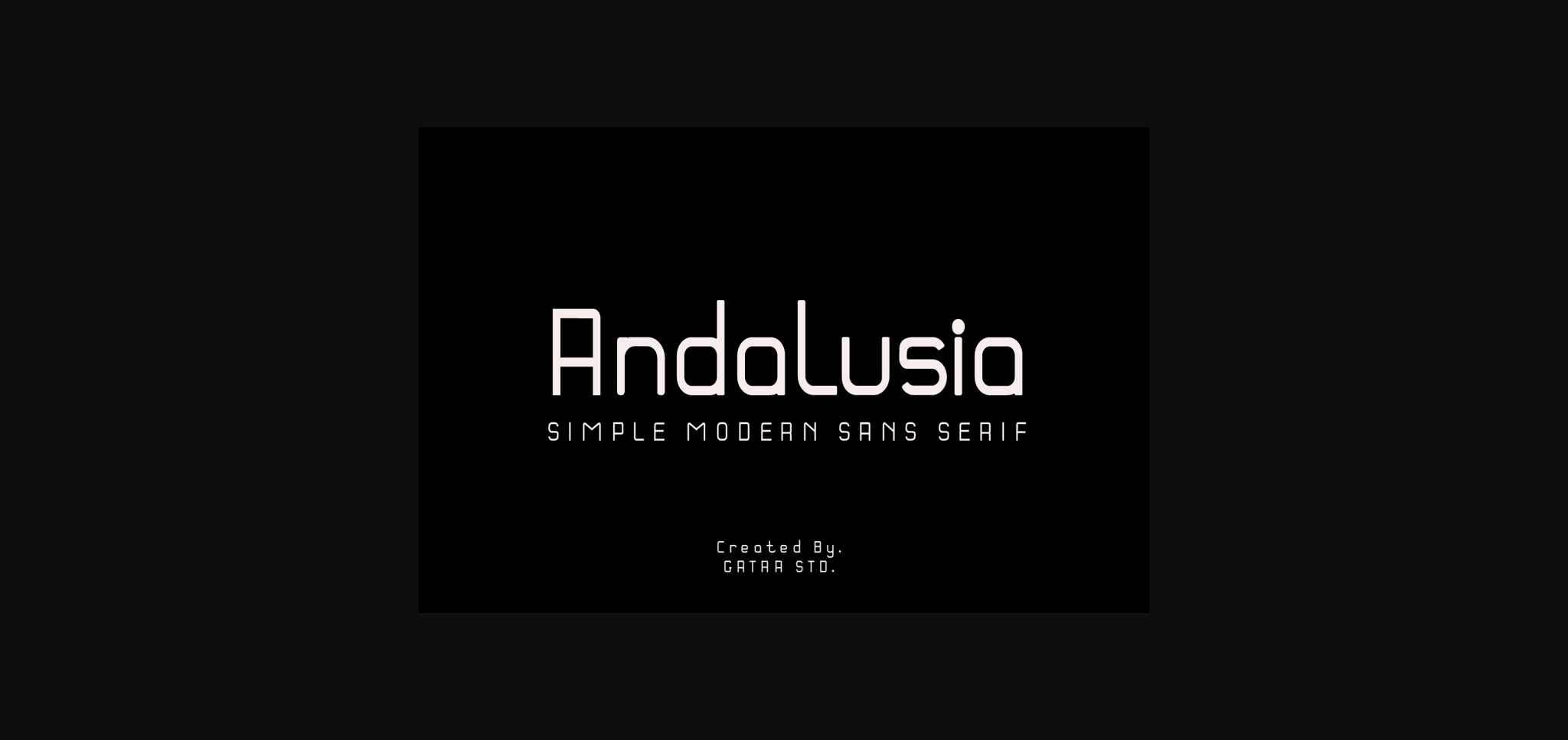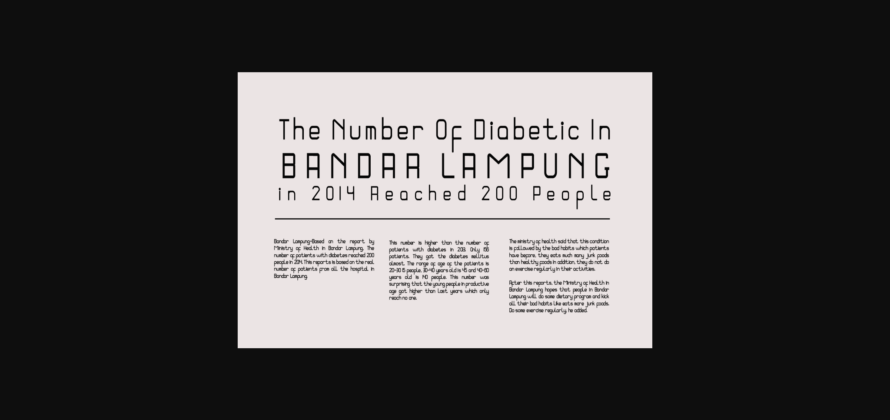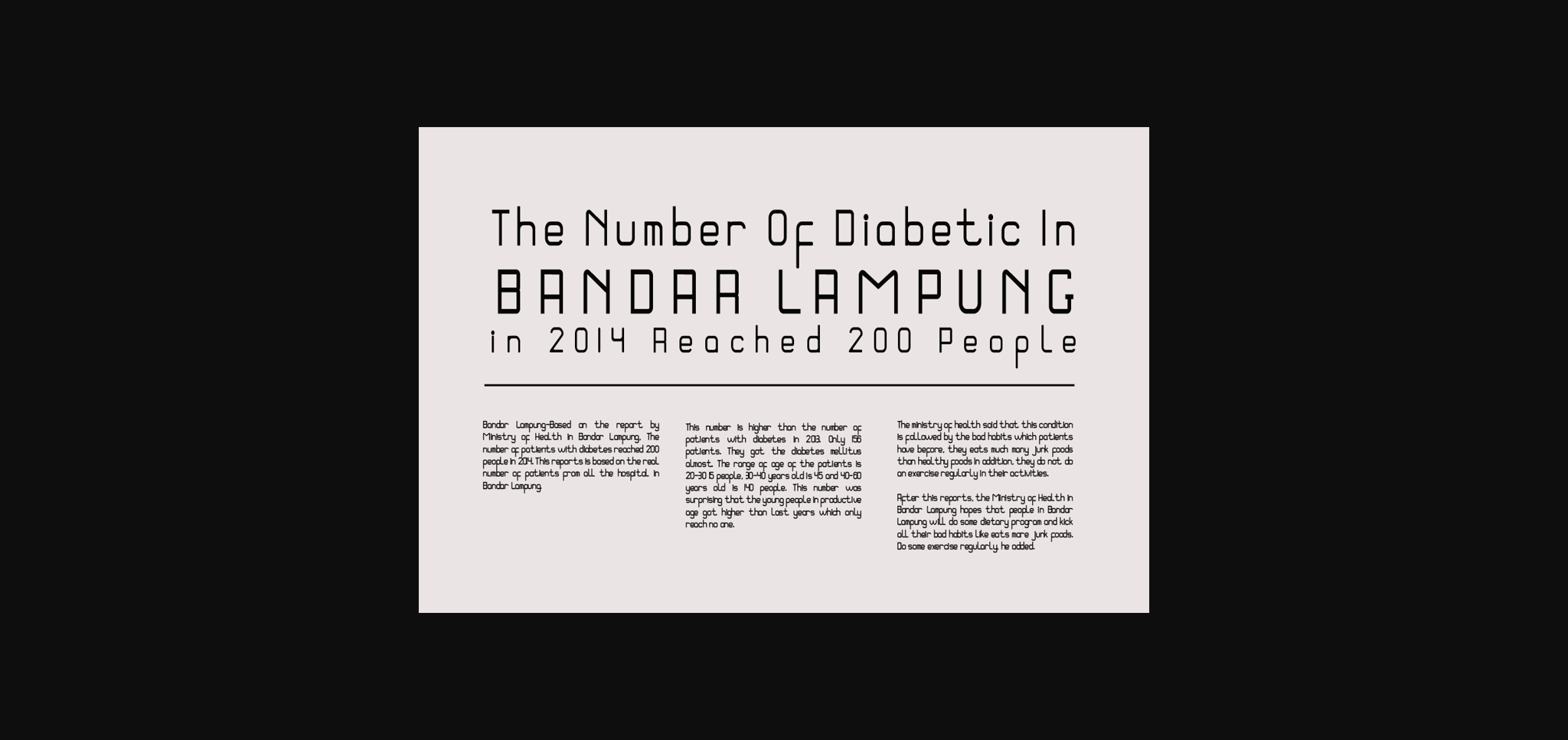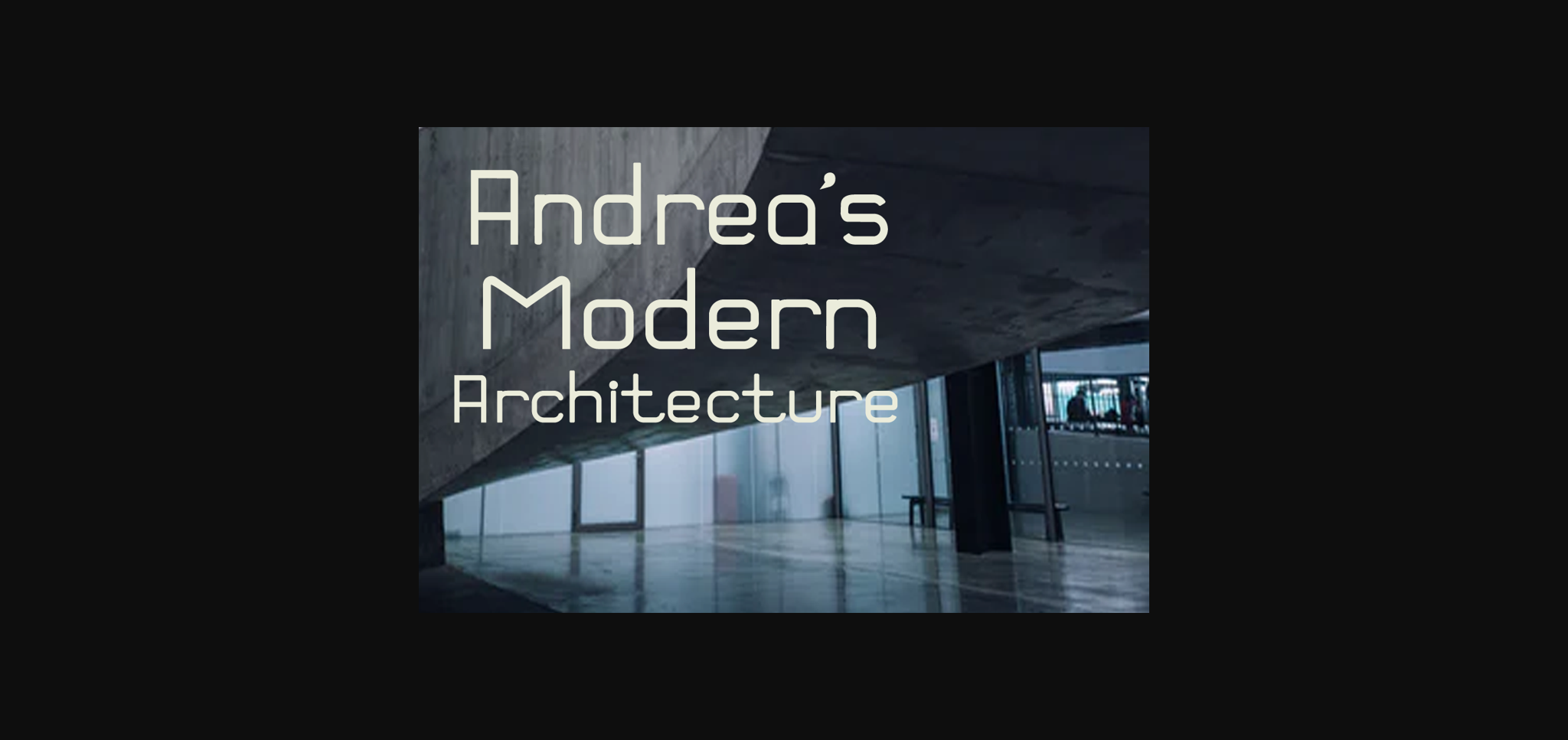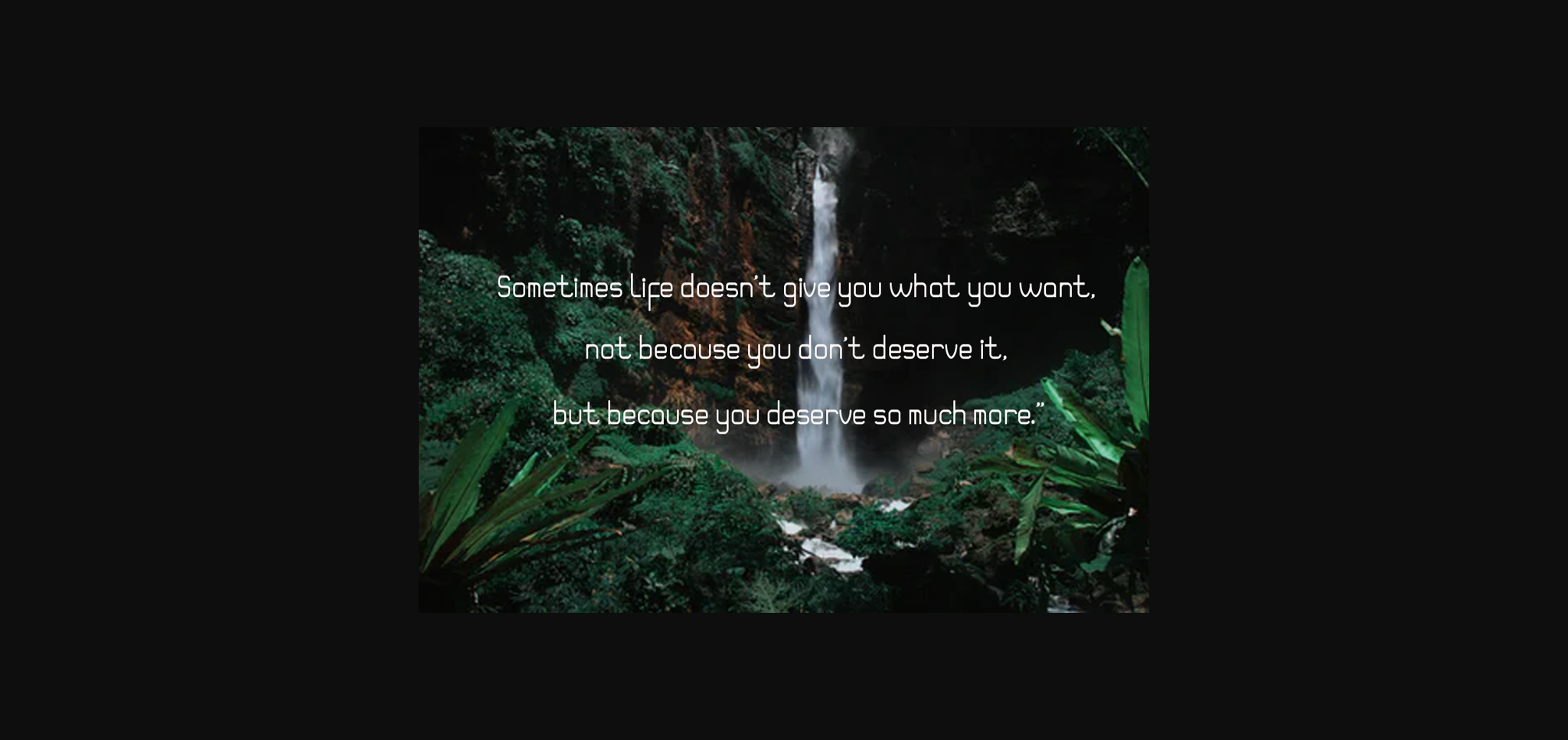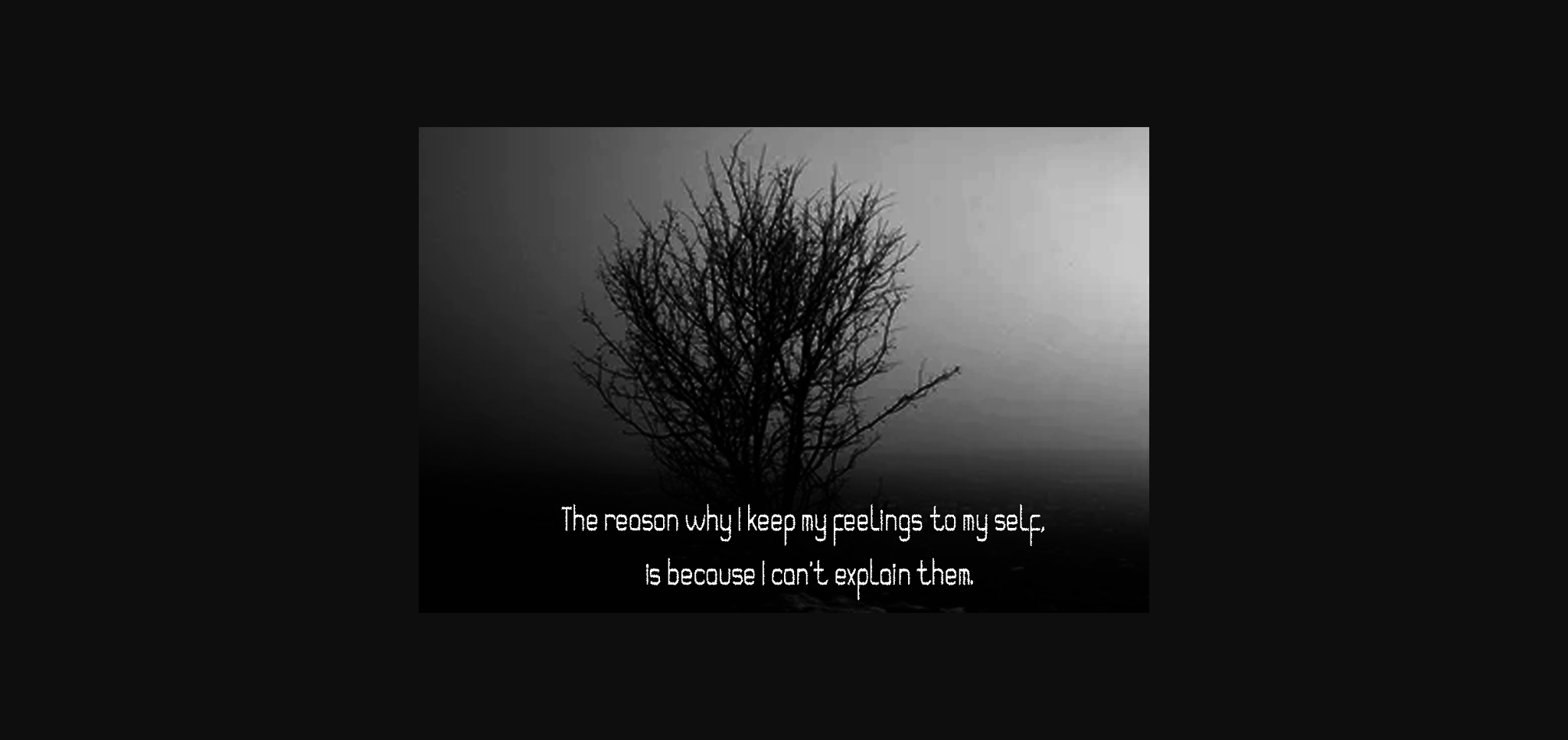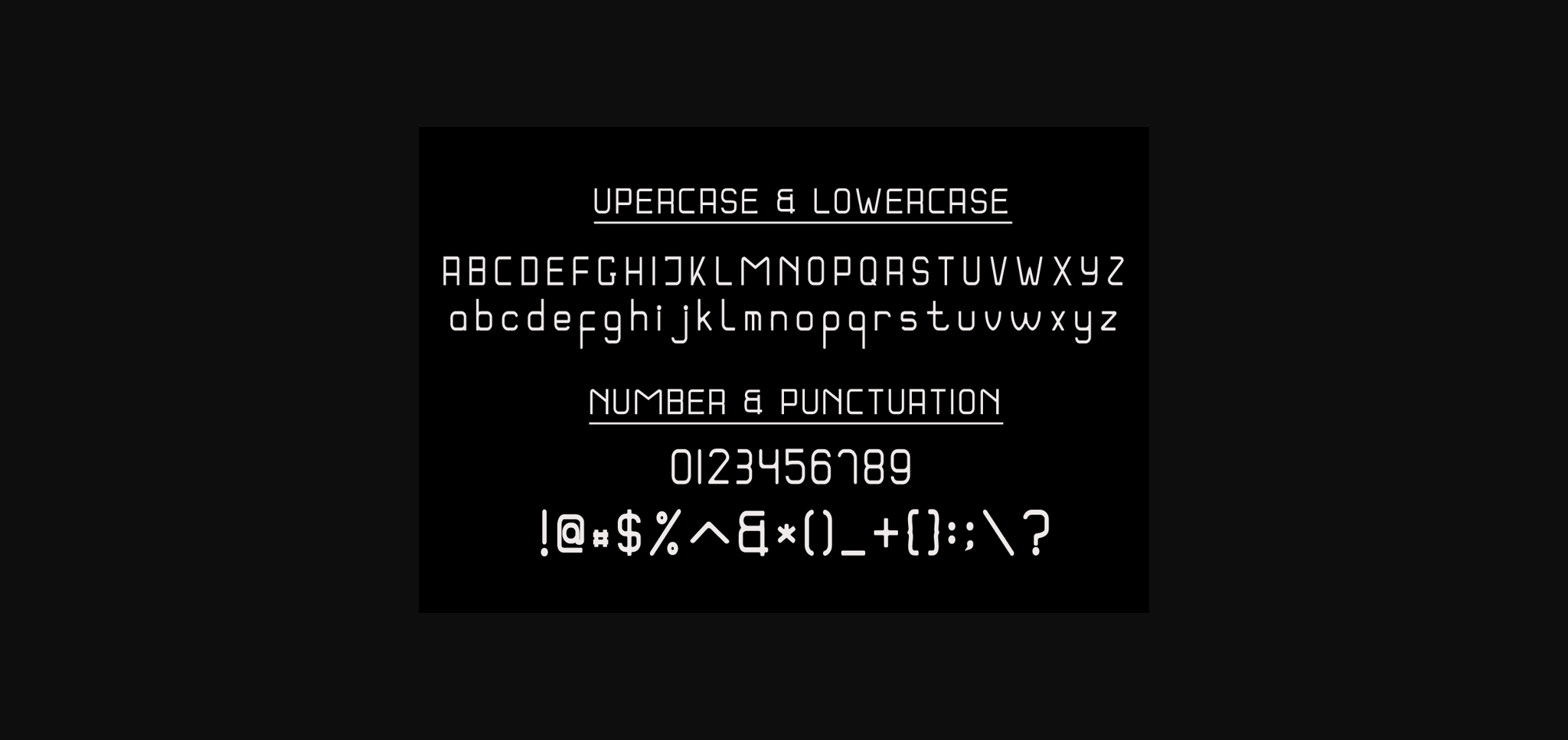
Andalusia is a futuristic and techno looking sans serif font. It can easily be matched to an incredibly large set of projects, so add it to your creative ideas and notice how it makes them stand out!